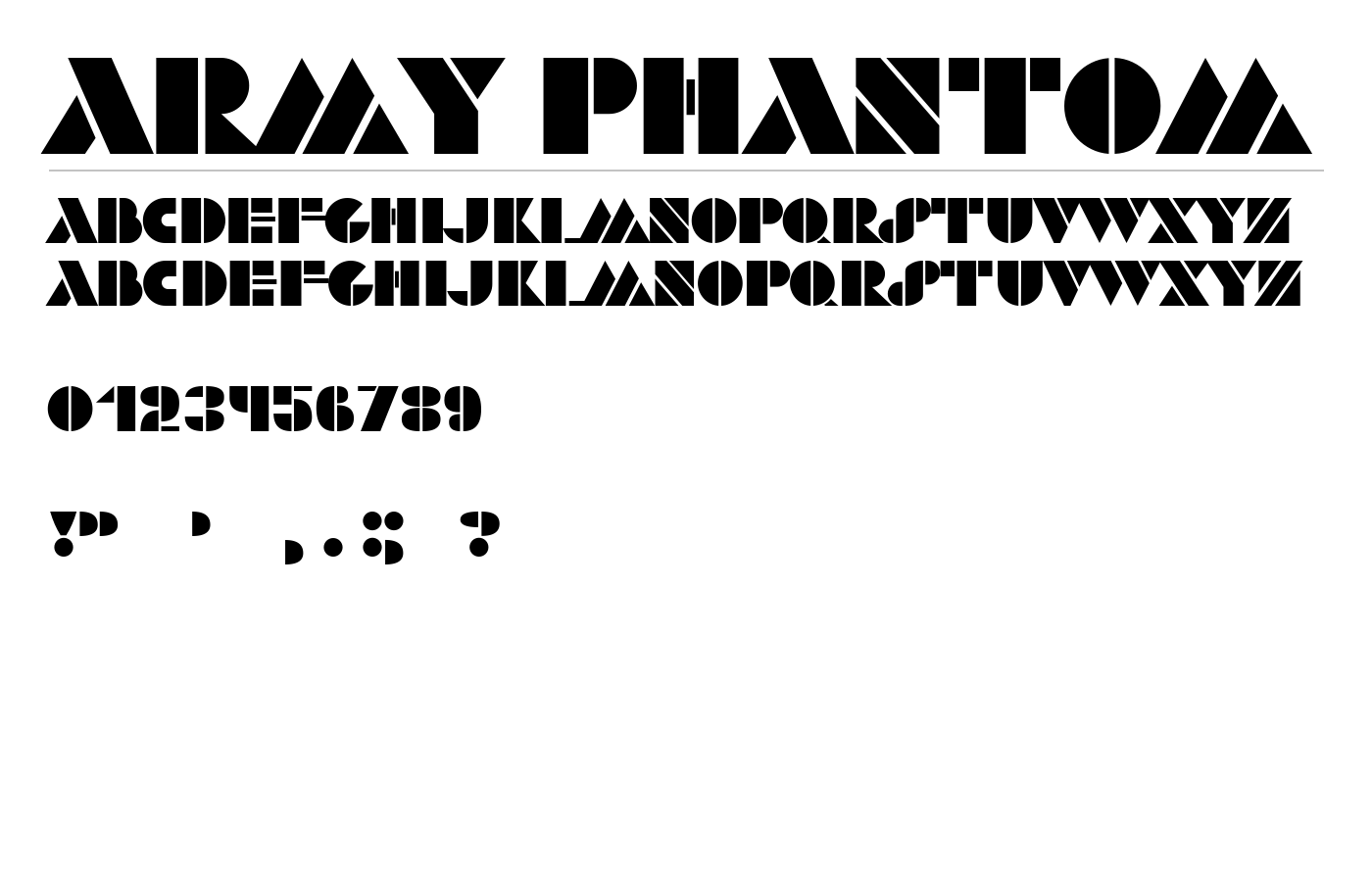
Army Phantom is a bold, geometric display font with solid black shapes and sharp angles, lending it a strong, architectural feel. Its heavy weight and stencil-like breaks create a military-inspired, modern look that works well for striking headlines, logos, and branding that demands attention and conveys power. This font is ideal for projects needing a commanding, futuristic style with a bold presence.
Army Phantom Font
About Army Phantom Font